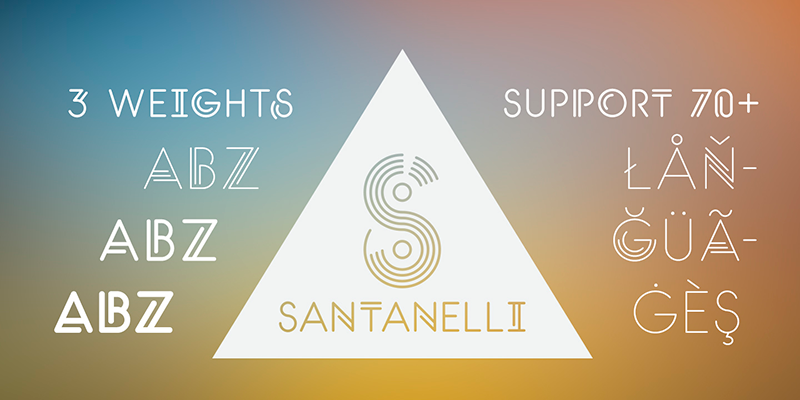
Font name: | Santanelli |
Author: | Pisto Casero |
Note by Pisto Casero | |
This is for PERSONAL USE ONLY. You can download the full font here: http://www.myfonts.com/fonts/pisto-casero/santanelli Santanelli is a rounded all caps display typeface. It is intended to be used in posters, editorial headlines and logotypes. It comes in three weights: Thin, Medium and Bold. Each letter has been designed with two different styles or flavors: decorative and clean. You can access each of them by typing uppercase and lowercase respectively. If you have any question of suggestion, don't hesitate to contact me. Enjoy! |